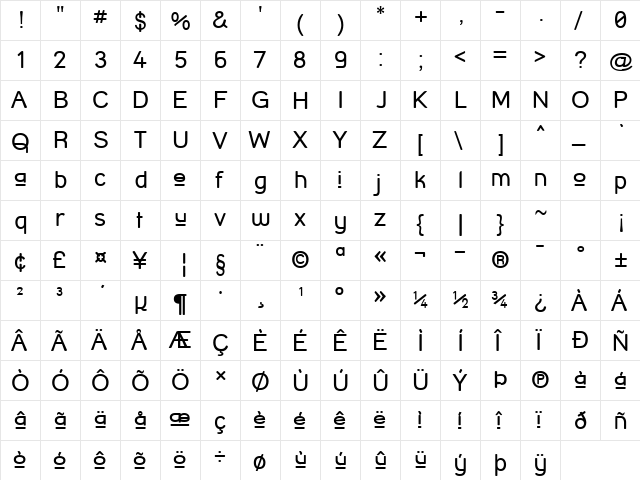
Street Corner Upper Regular
Design Context for Street Corner Upper Typeface
Street Corner Upper takes a measured approach to typography — its balanced proportions and neutral character make it a reliable workhorse for both digital and print work.